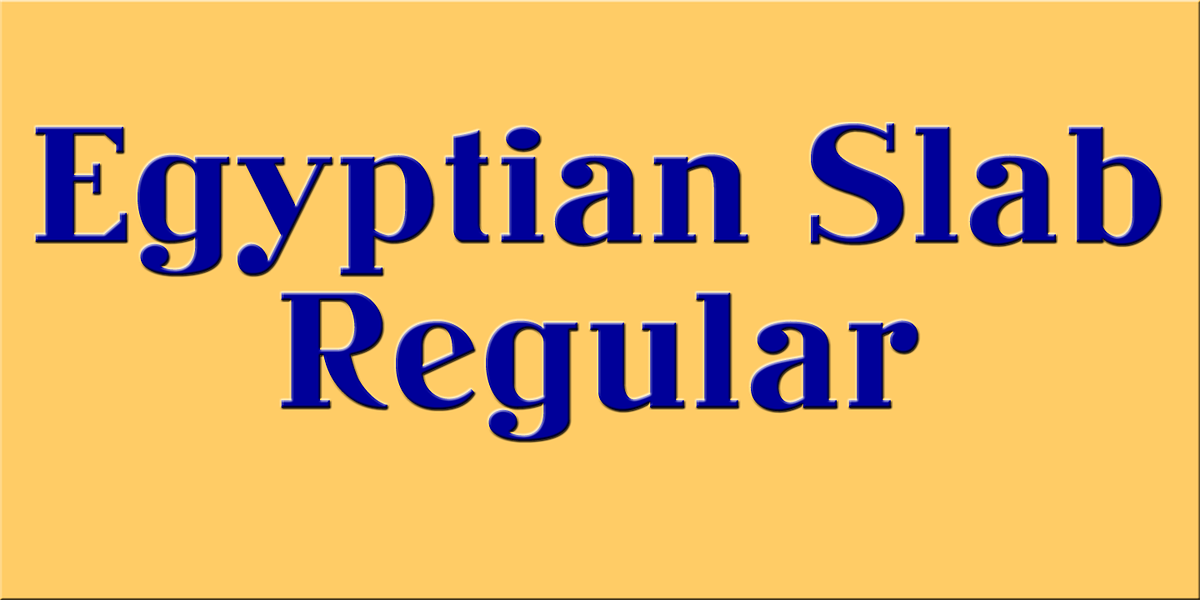
Egyptian Slab
This font is a revival of a popular wooden type design from the 1870s. It features regular slab serifs with ball terminals, making it a bold and classic choice for display purposes such as headlines, posters, and other large-scale text.